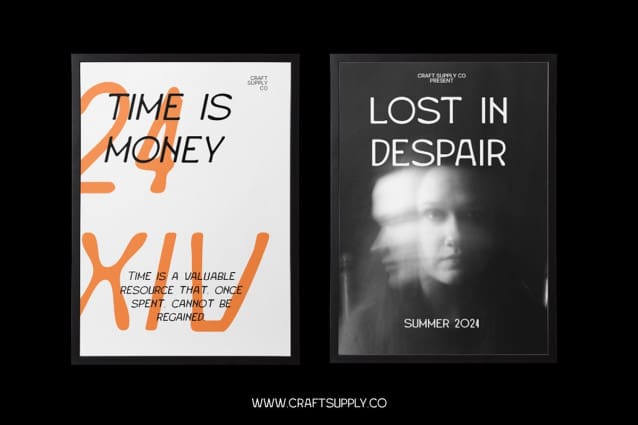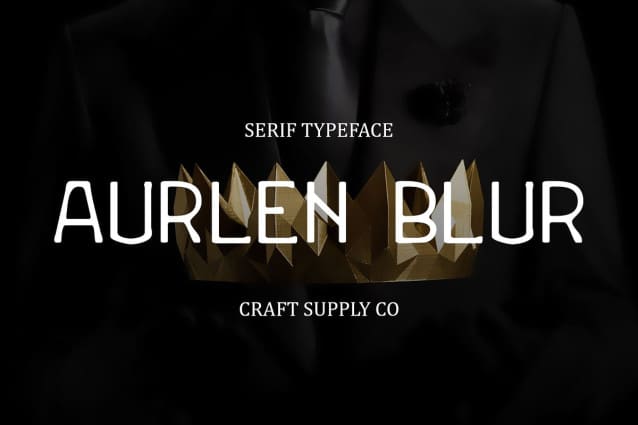
Aurlen Blur Font
Aurlen Blur Font: Subtle Sophistication. Low Contrast Serif Design Aurlen Blur features a low contrast serif design that exudes understated elegance. Its clean lines and refined shapes lend a sense of sophistication to any project.
Blur Effect The font is enhanced with a subtle blur effect, adding a touch of softness and intrigue to its appearance. This effect creates a gentle visual texture that is both unique and captivating.
Ideal for Display With its low contrast serif design and blur effect, This font is perfectly suited for display purposes. It commands attention without overwhelming, making it ideal for headlines, banners, and other prominent elements.
Versatile Application Despite its distinctive design, This font is versatile in its application. From branding and packaging to editorial design and signage, it adds a touch of subtlety and sophistication to any project.
Elegant Simplicity with a Soft Touch This font offers a perfect balance of elegance and subtlety, making it an excellent choice for designers seeking a font that stands out without being overpowering. Its low contrast serif design and subtle blur effect add a touch of sophistication to any design project.